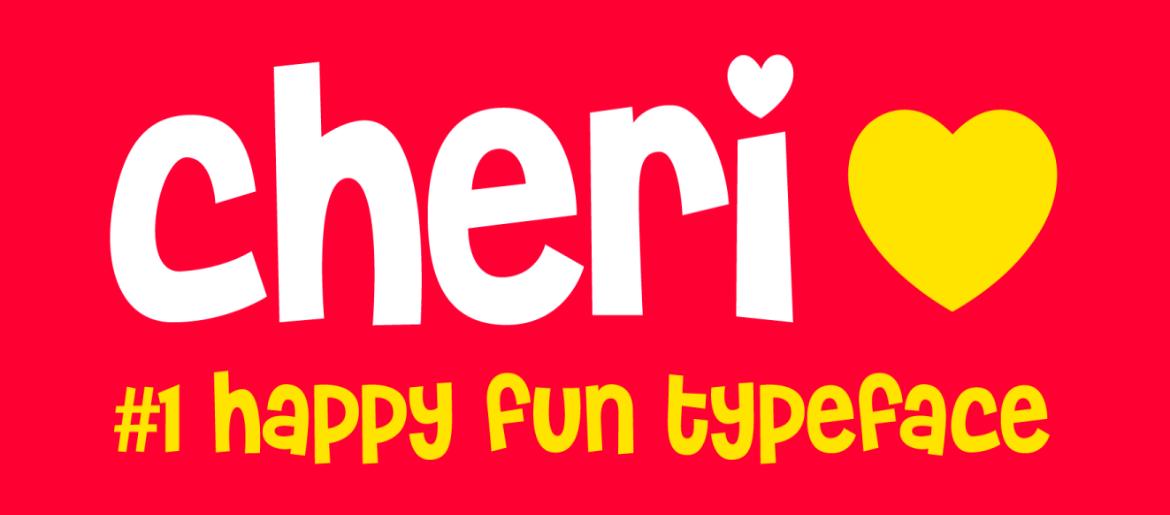
Cheri Font
Cheri Font is a bubbly, playful typeface filled with charm and personality. With its rounded letterforms and cheerful rhythm, it brings a fun, lighthearted feel to any design. Perfect for children’s projects, branding, packaging, posters, and social media graphics, Cheri adds sweetness, joy, and friendly energy to every layout.
➤ Font Name: Cheri
➤ Designer: Fontalicious
➤ Style: Cartoon